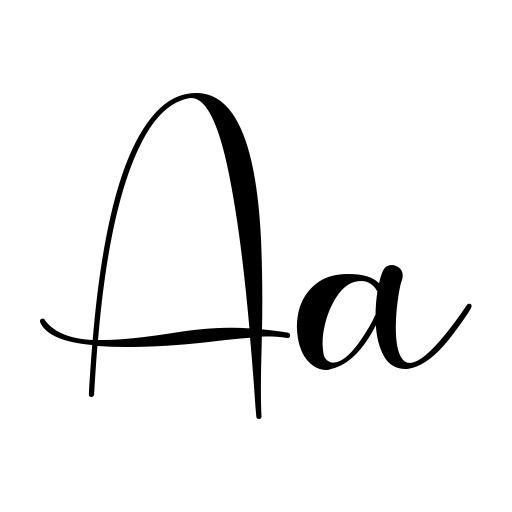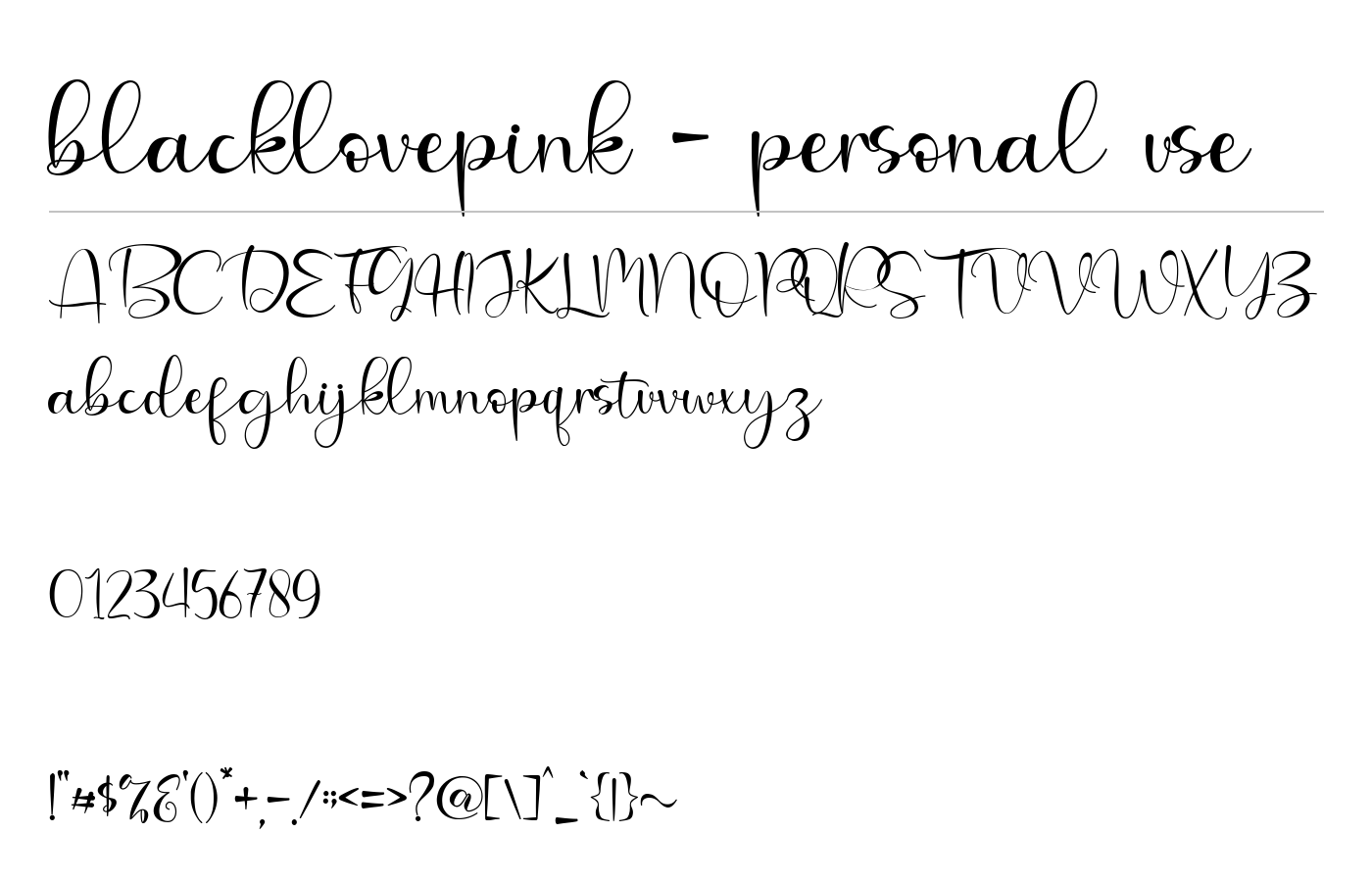
Blacklovepink is an elegant, handwritten script font with a delicate, airy feel and playful flourishes. Its thin, flowing strokes and unique letterforms create a personal, feminine vibe that works beautifully for invitations, branding, and creative projects seeking a charming, stylish touch. Ideal for adding warmth and personality, it shines in logos, greeting cards, and social media design.
blacklovepink - personal use Font
About blacklovepink - personal use Font